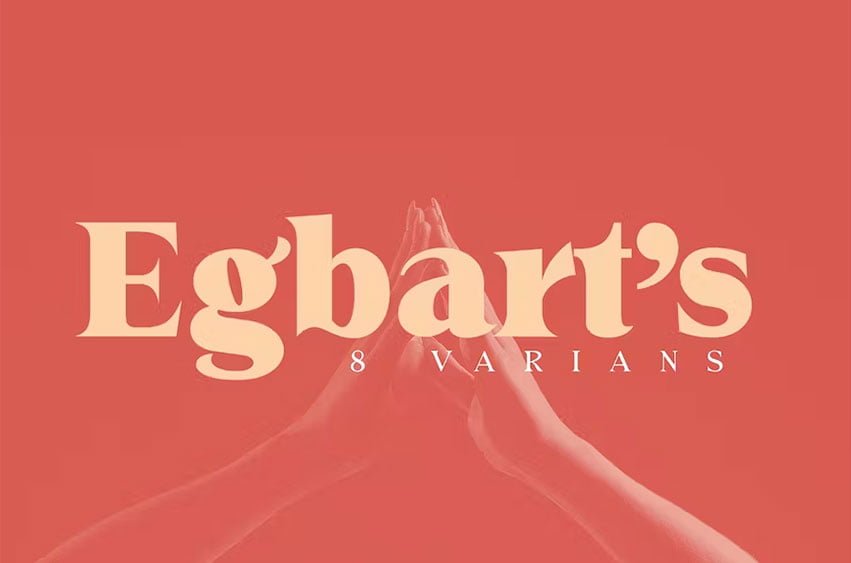
Egbert Font is a Serif font family, which has a strong and bold character with 8 variants. File inclede OTF only.
Egbert is a versatile typography filled with the character you want. with Marston you work.Egbert has standard styles, Stylistic Alternates and ligatures. and includes upper and lower case letters, numbers and punctuation marks.
Multilingual support for various languages including: French, German, Spanish, Portuguese, Italian, Dutch, Finnish, Swedish, and more.